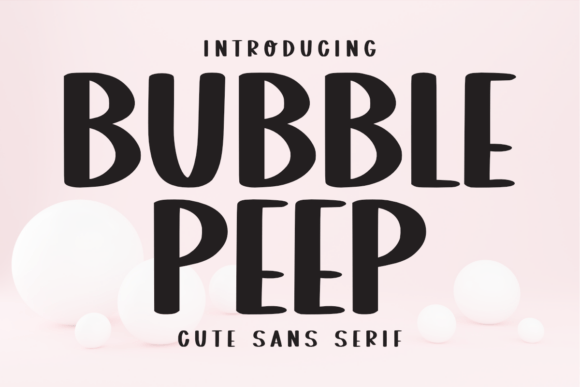
Unleash Your Creativity with the Perfect Font
Remember the feeling of excitement and joy when you’re working on a creative project? The moment when everything comes together, and you can’t wait to share it with the world? That’s exactly what I’m talking about. As a crafter, designer, or maker, you know how hard it can be to find the right font that captures the essence of your project. That’s why I’m thrilled to introduce you to the adorable Bubble Peep Font, a playful handwritten font that’s perfect for bringing your ideas to life.
This charming font is designed to add a touch of whimsy and friendliness to your crafts, planners, stickers, greeting cards, and more. Whether you’re working with Cricut, sublimation, or other creative DIY projects, the Bubble Peep Font is an invaluable tool in your design arsenal. Its versatility and charm make it a must-have for anyone looking to add a personal touch to their projects.
Bubble Peep Font Key Features
- Font Family: Bubble Peep is a unique, hand-drawn font family designed to evoke a sense of whimsy and playfulness.
- Unique Characteristics: Features a distinctive, bubbly design with irregular shapes and lines, giving it a one-of-a-kind look that adds a touch of personality to any design.
Bubble Peep Font Review
I’ve had the chance to work with the Bubble Peep Font, and I have to say it’s a unique addition to any design project. Here are some of its strengths and weaknesses.
- Unique and playful style that adds a touch of whimsy to any design
- Works well for titles and headings, especially for children’s books or educational materials
- Legibility is decent, making it suitable for body text as well
- Font size can become a bit too large for smaller text, making it difficult to read
- Lack of italic or bold styles can limit its versatility in certain design scenarios
- Not suitable for formal or professional designs, as it may come across as too playful or immature
Overall, the Bubble Peep Font is a fun and creative choice for designers looking to add some personality to their work. While it may have some limitations, it’s definitely worth considering for the right project. Just be mindful of its potential drawbacks and use it judiciously.
Some tips for getting the most out of the Bubble Peep Font include using it for:
– Children’s party invitations and decorations
– Whimsical and playful designs
– Creating a unique and eye-catching visual identity.